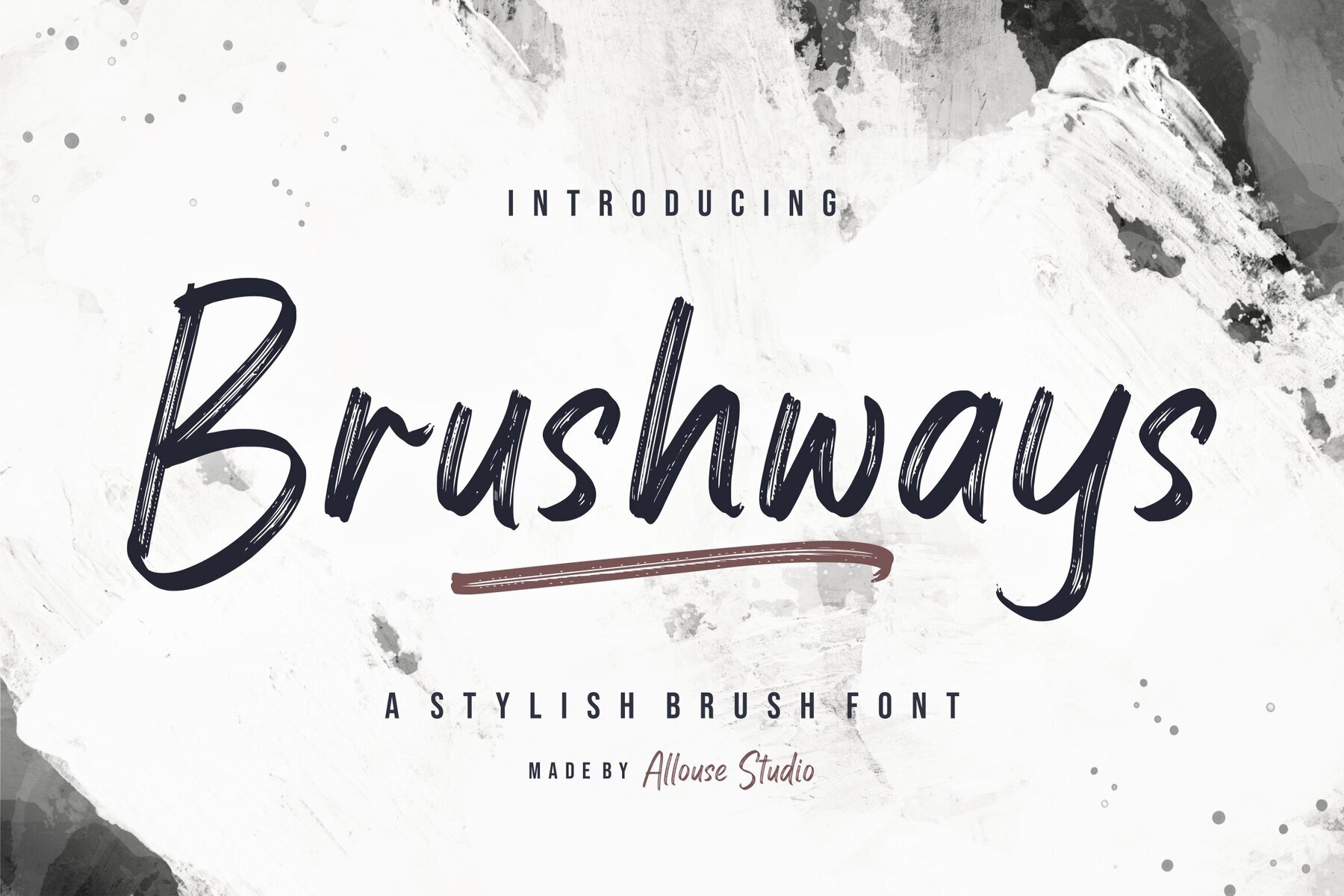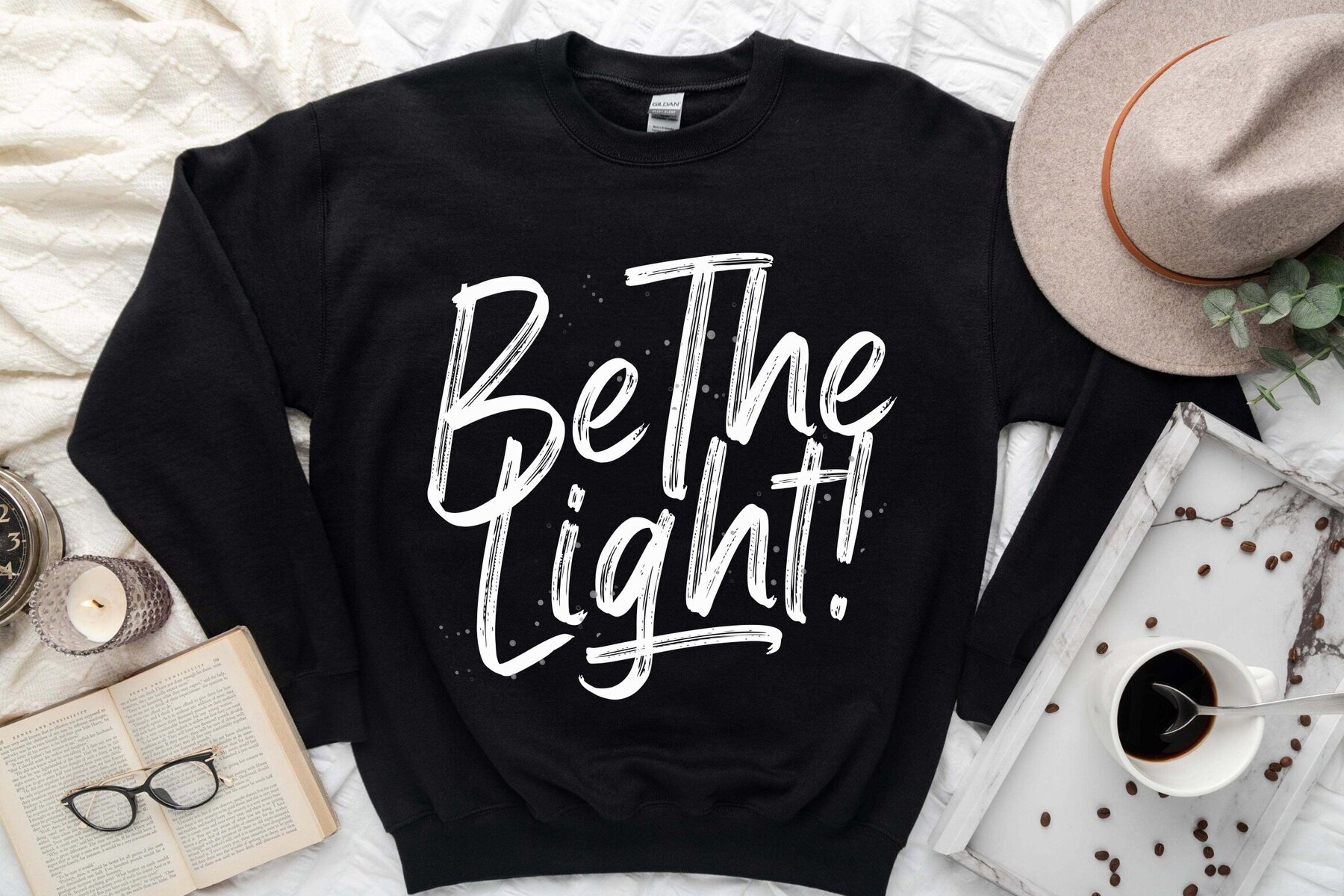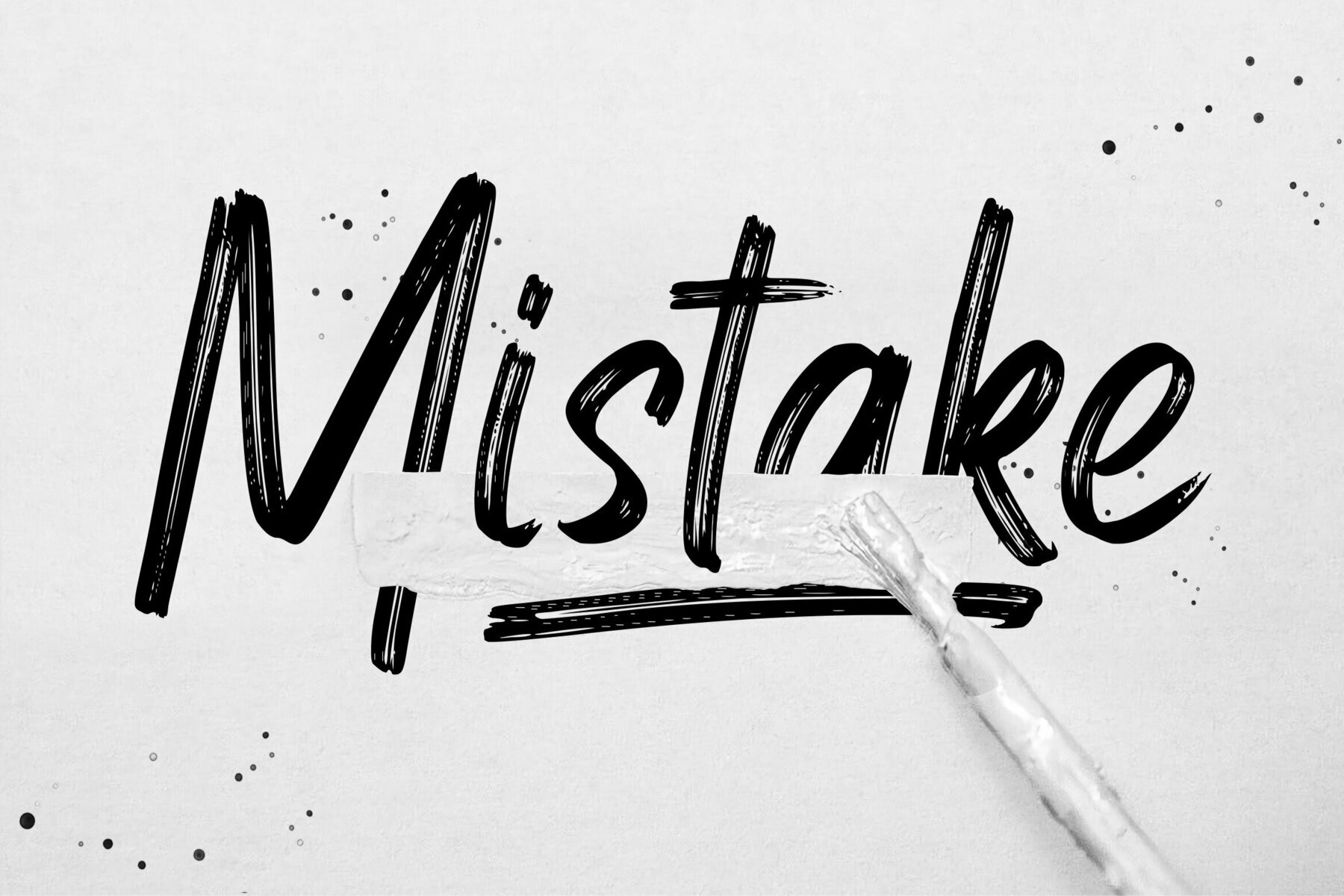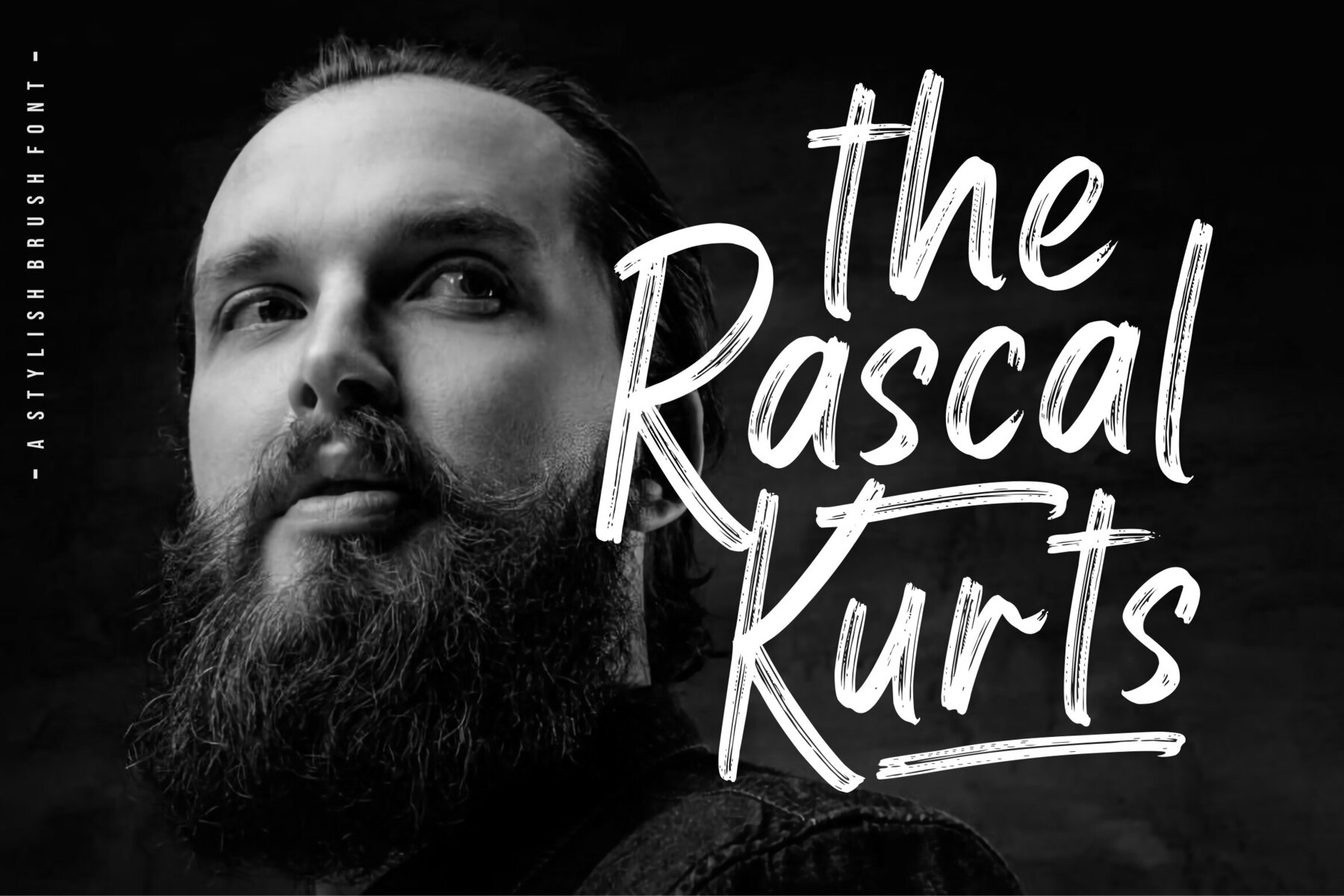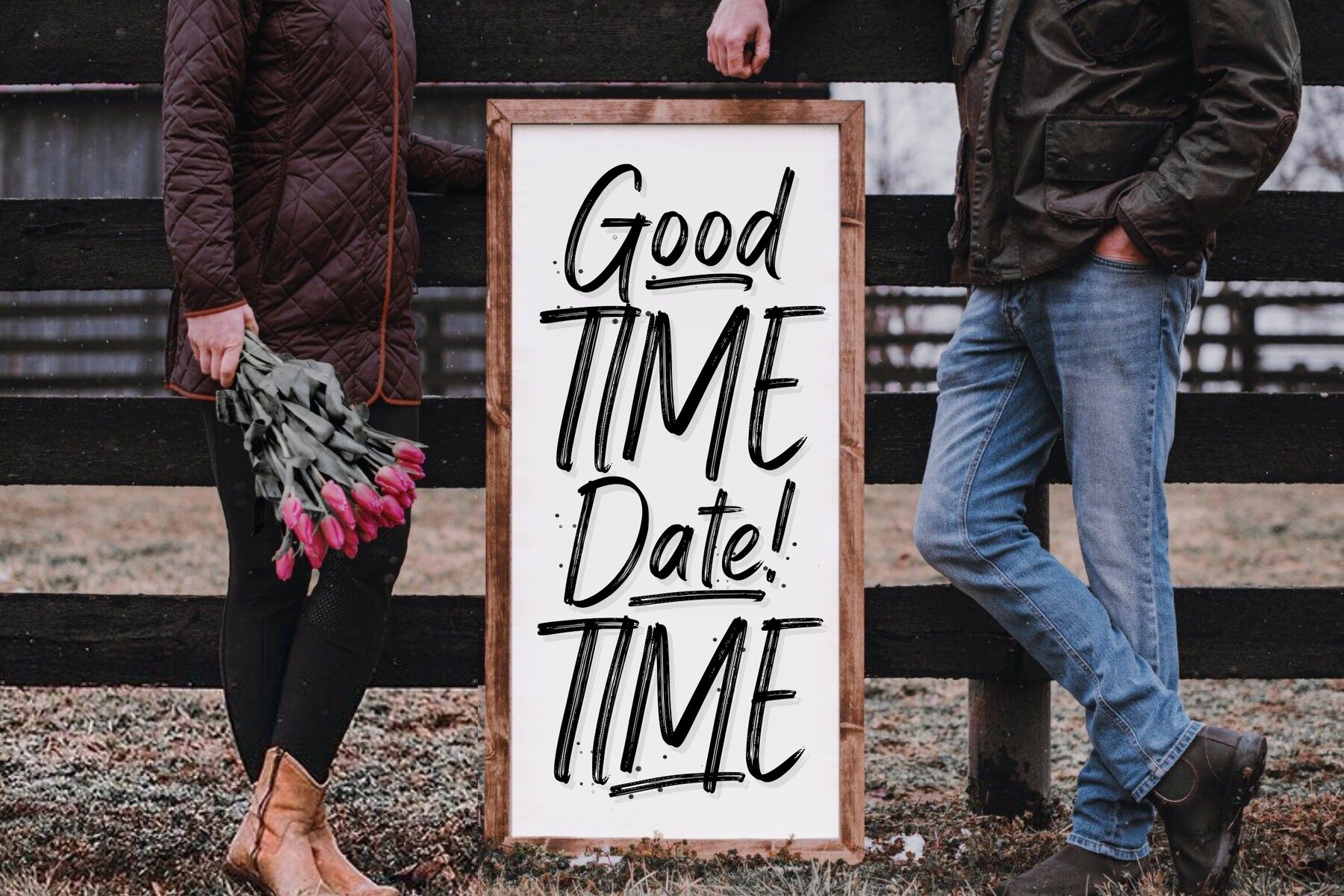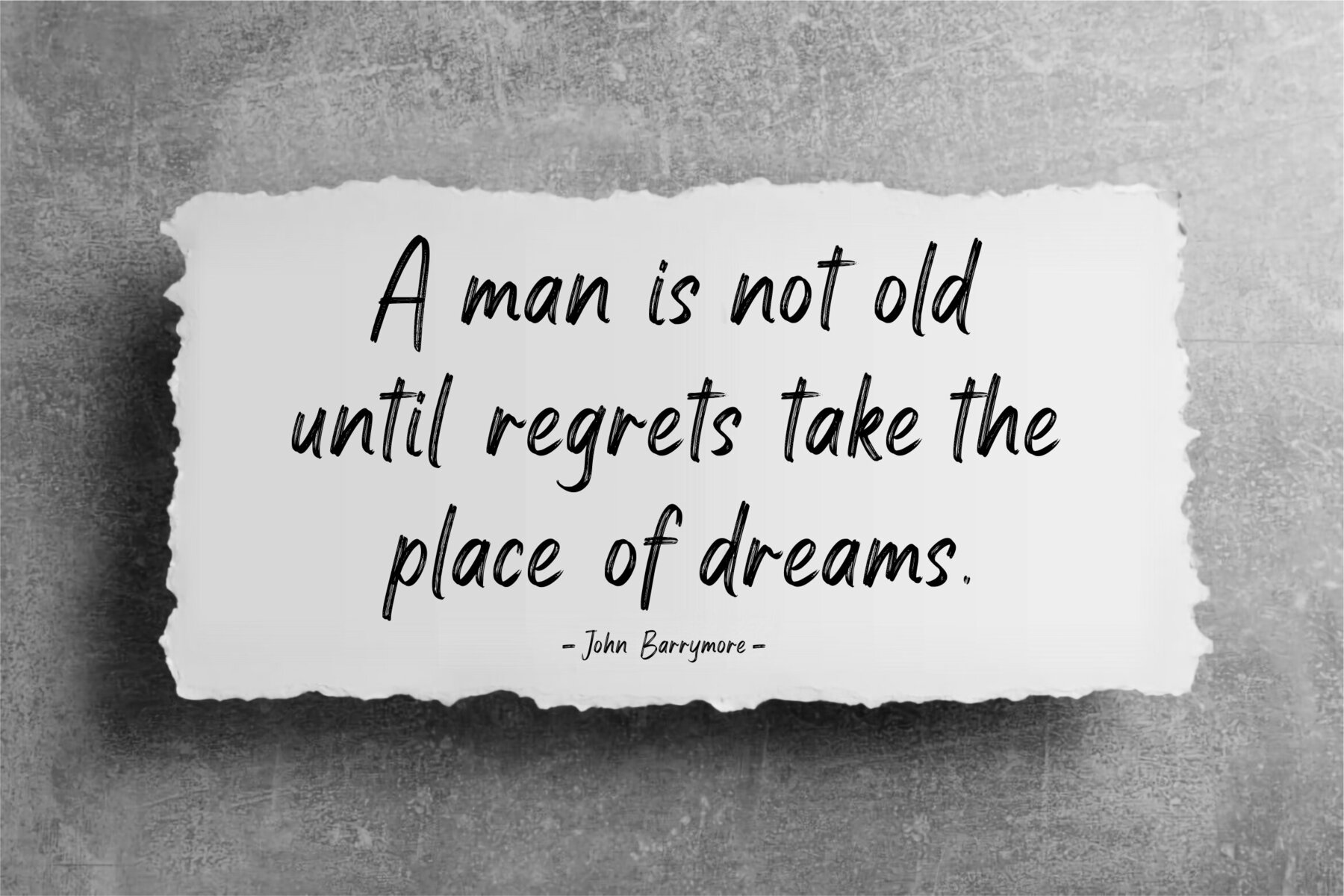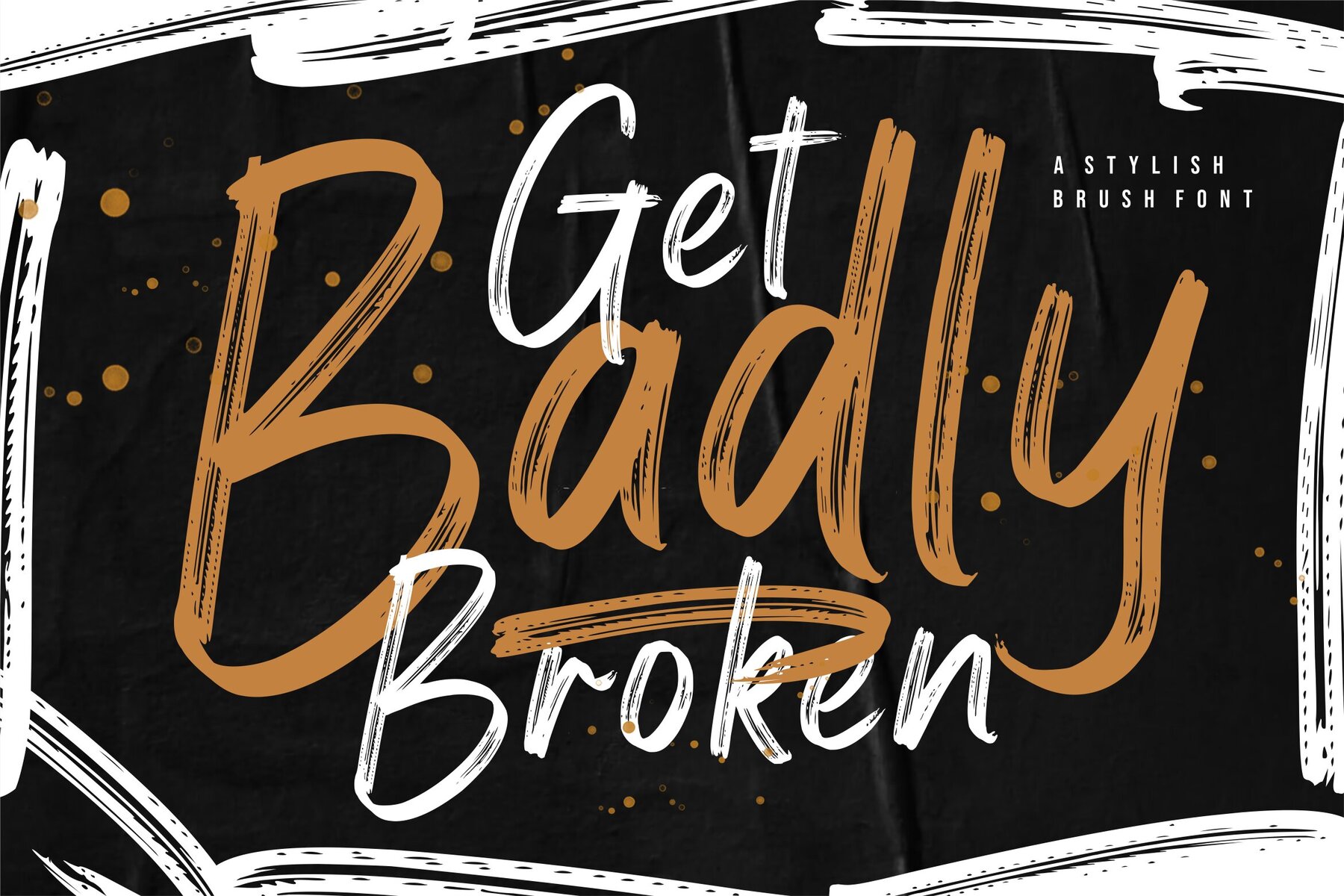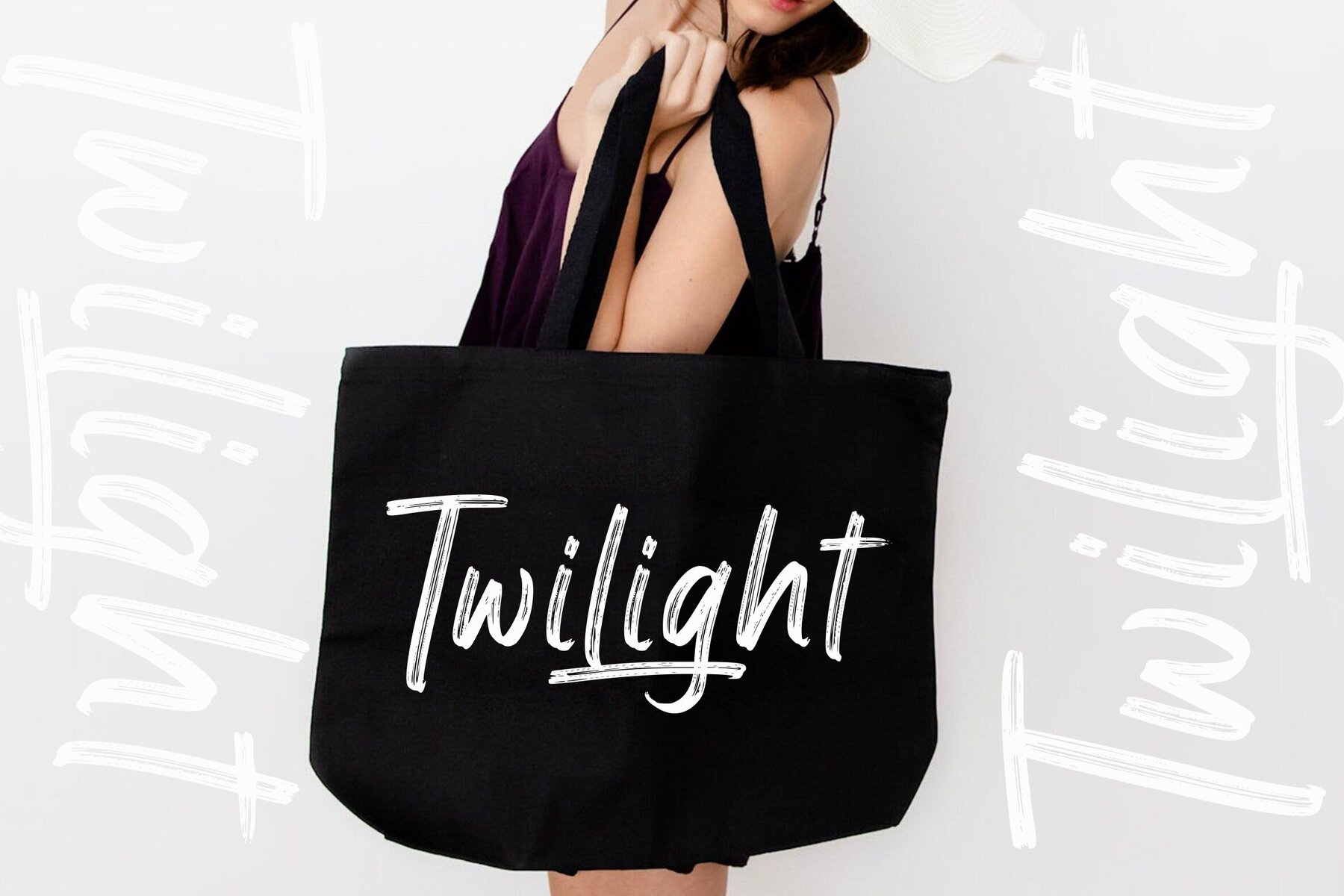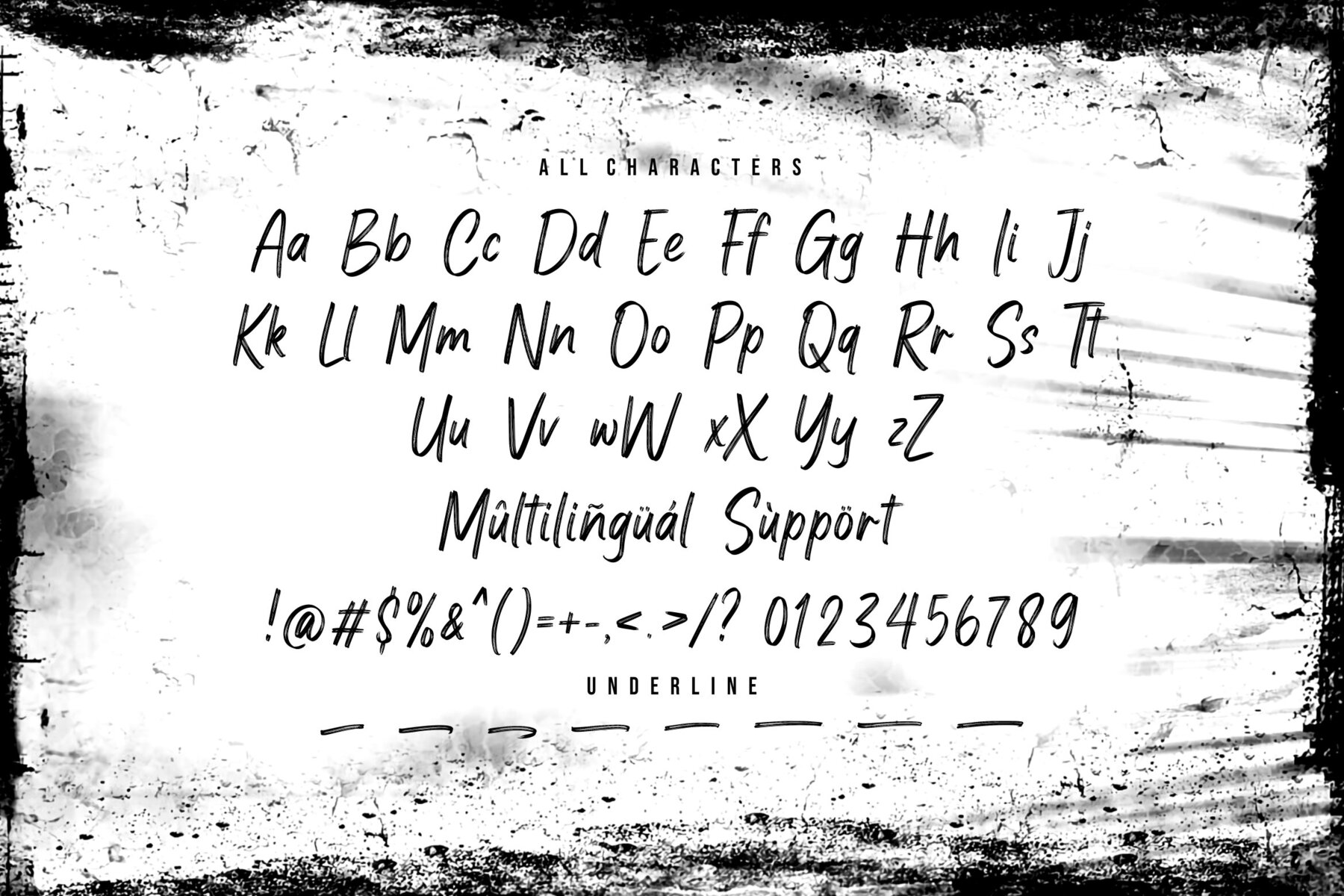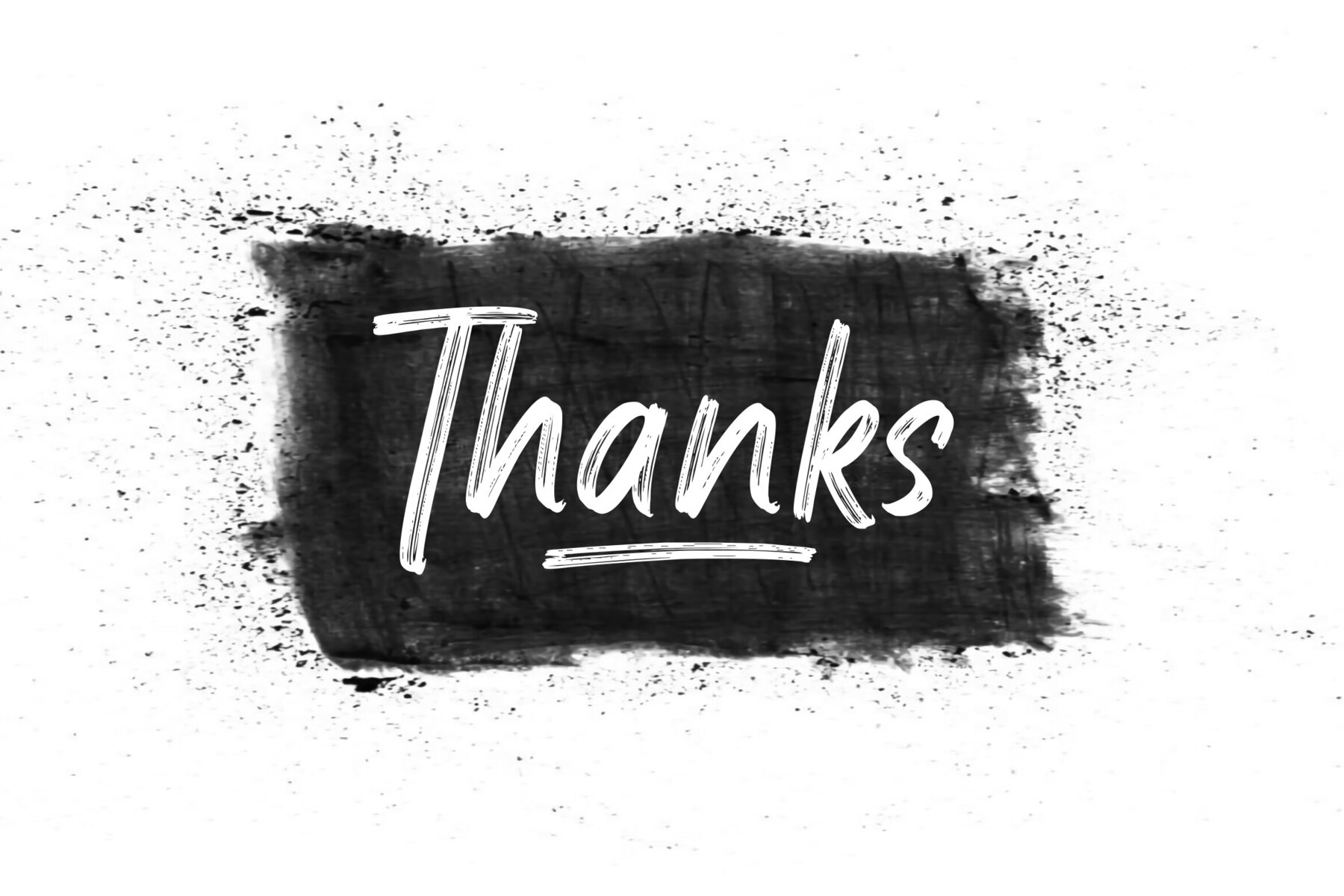
Brushways Font
Brushways Regular
Brushways by Allouse Studio is a versatile font that adds a touch of creativity and style to any design project. Ideal for product packaging, branding, and magazines, it seamlessly transitions between formal and informal settings.Brushways: Dynamic Font for Creative Projects
Features of Brushways